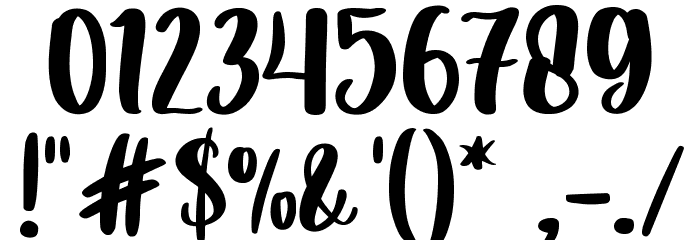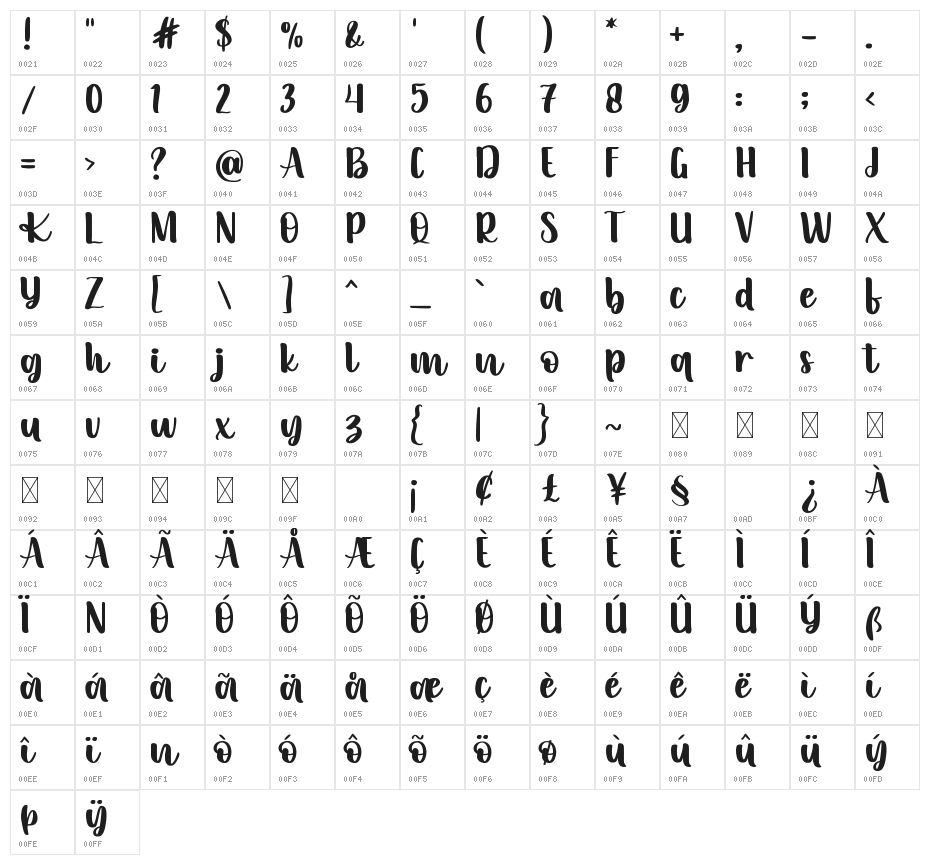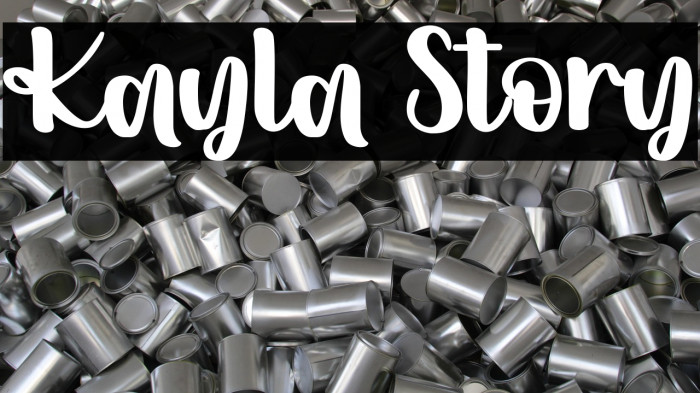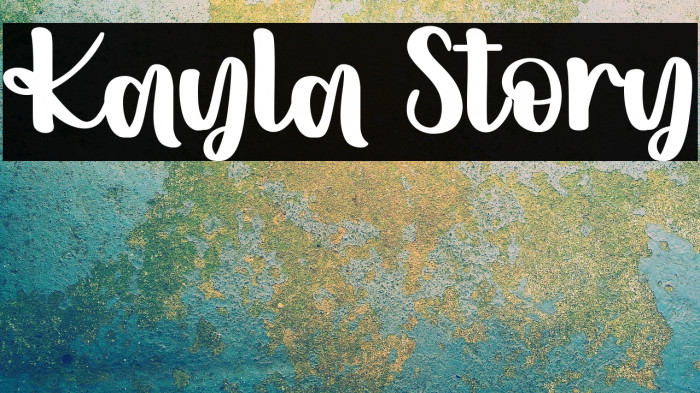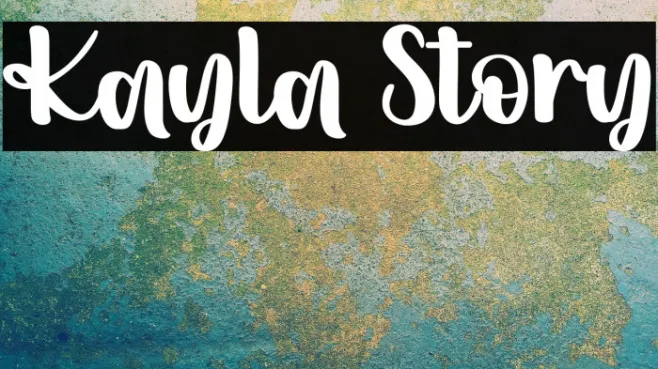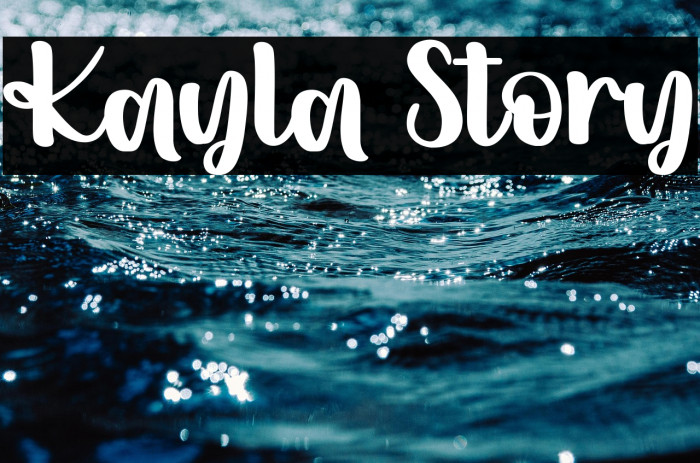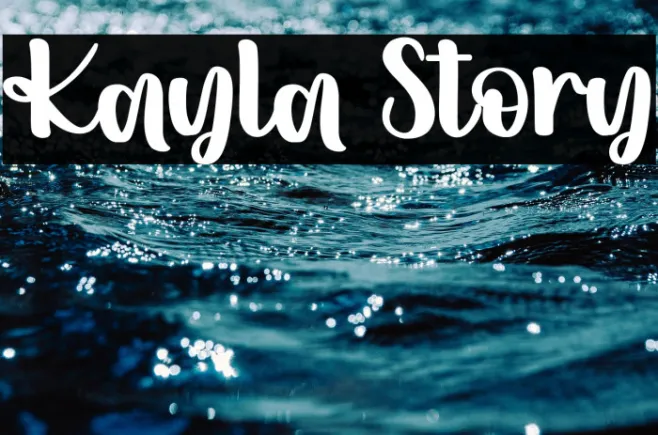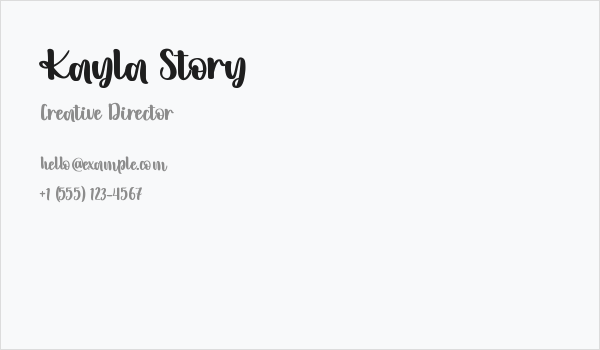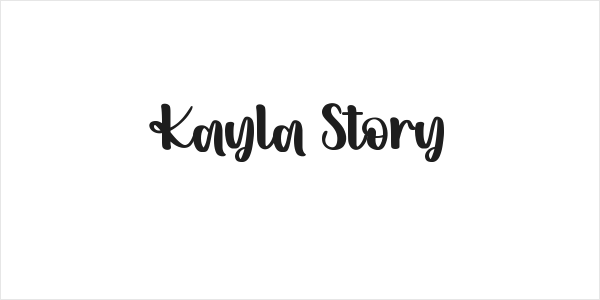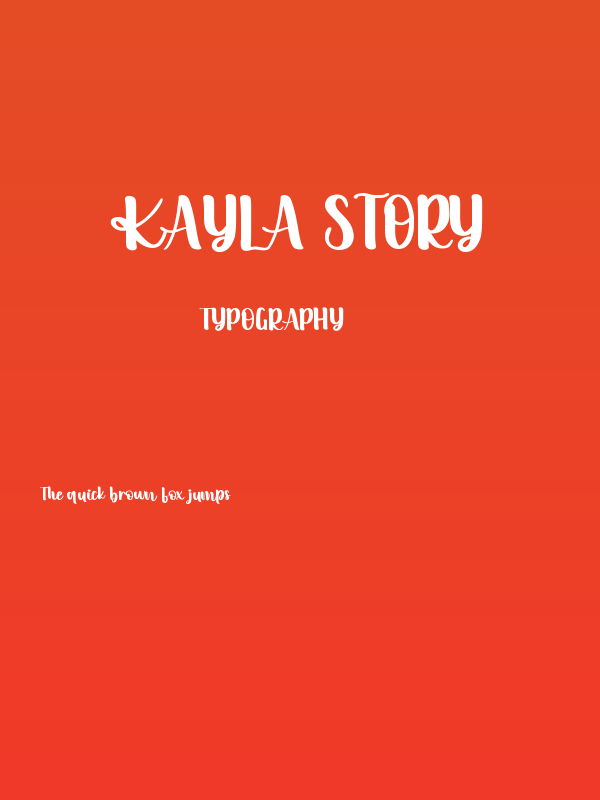
Kayla Story Font
Kayla Story Description
This font features a playful and bold handwritten style, characterized by thick, flowing strokes and a lively, energetic appearance. The uppercase letters are tall and slightly narrow, with a consistent stroke width that gives them a strong presence. The lowercase letters maintain the same boldness, with rounded forms and smooth curves that add a sense of movement and fluidity. The numbers and special characters follow the same design principles, ensuring a cohesive look across all elements. This font's informal and friendly style makes it ideal for projects that require a personal touch.